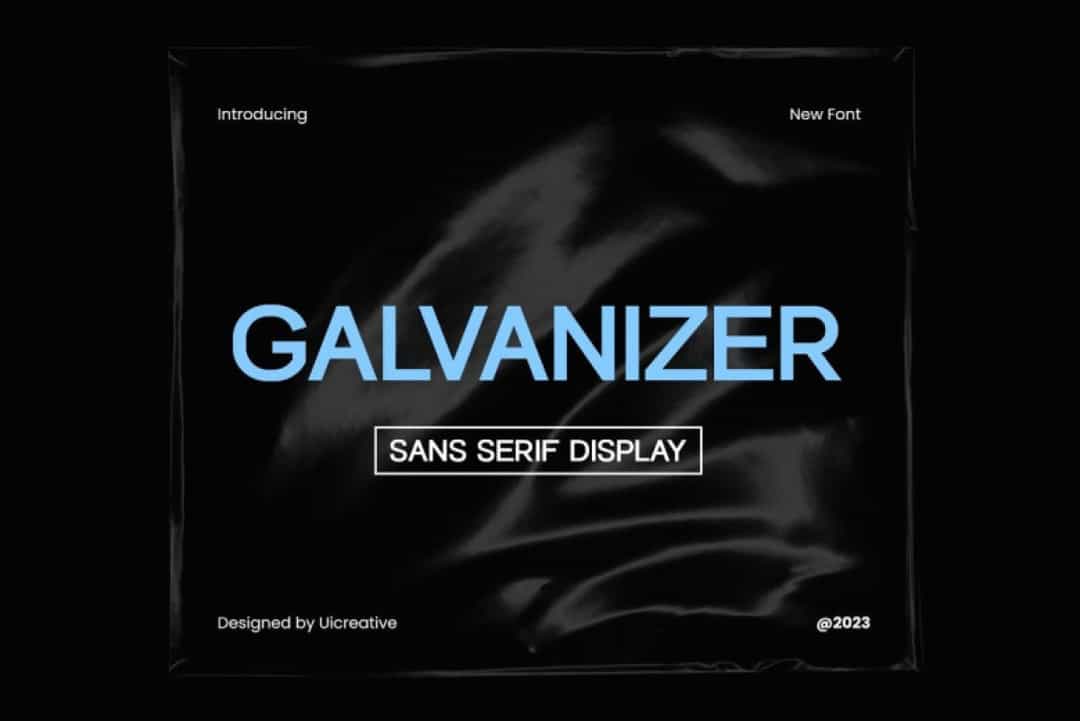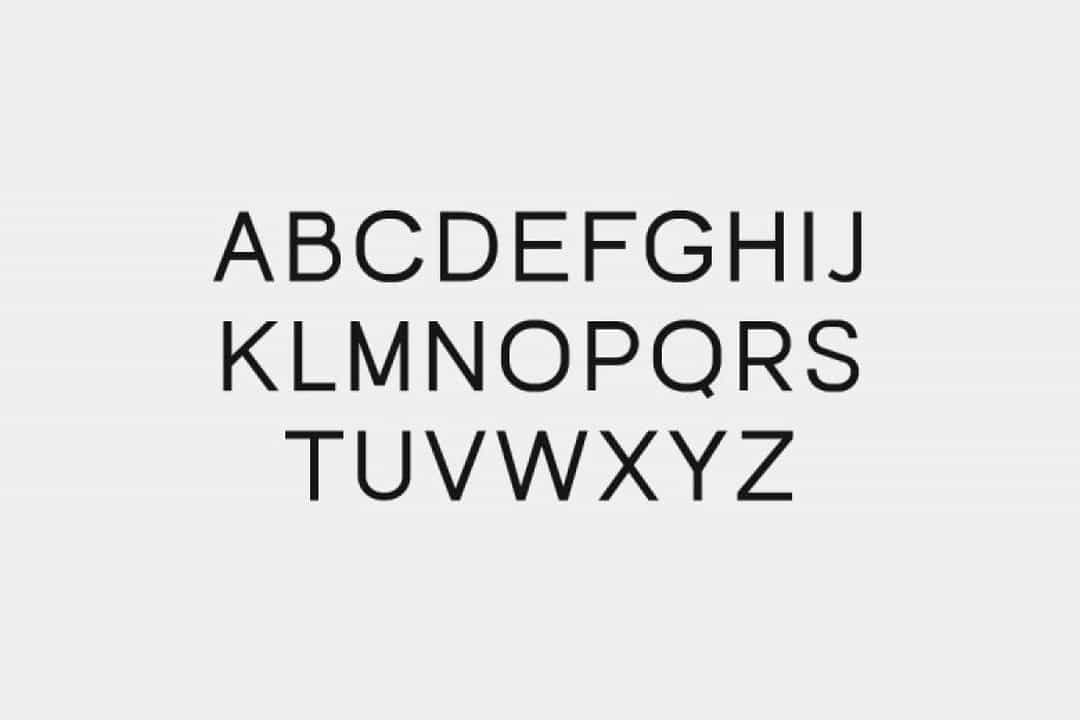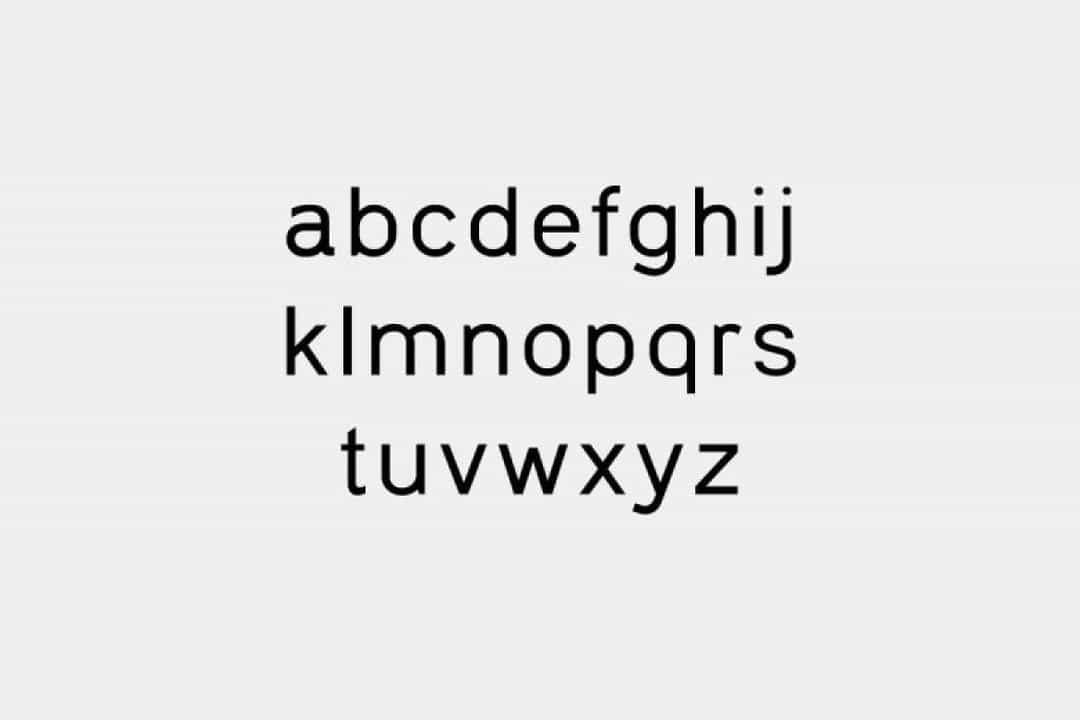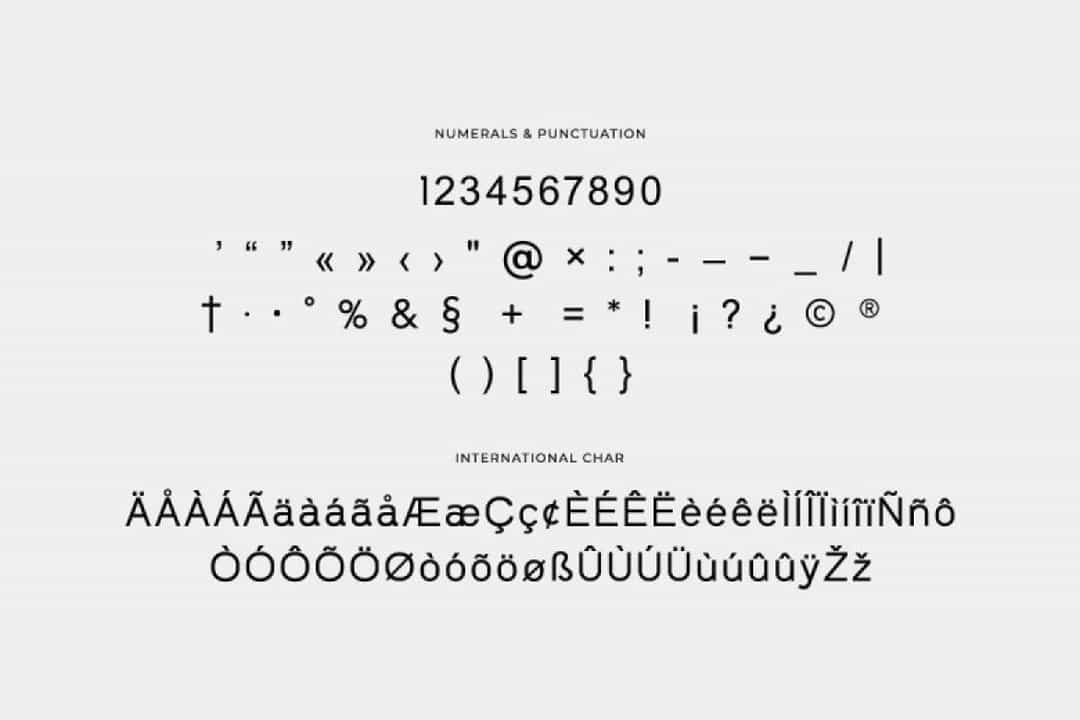
Galvanizer Font
Galvanizer is an elegant sans-serif family of fonts with contemporary appeal that embodies beauty, sophistication, elegance, and sophistication. Perfect for use in many designs ranging from logos to stationery to signature wedding invitations; typography quotes to book or magazine covers; website headers, branding designs, clothing packaging designs, fashion related editorial designs (with feminine and masculine characteristics); fashion-related branding or editorial designs are an excellent example of where Galvanizer can shine bright.